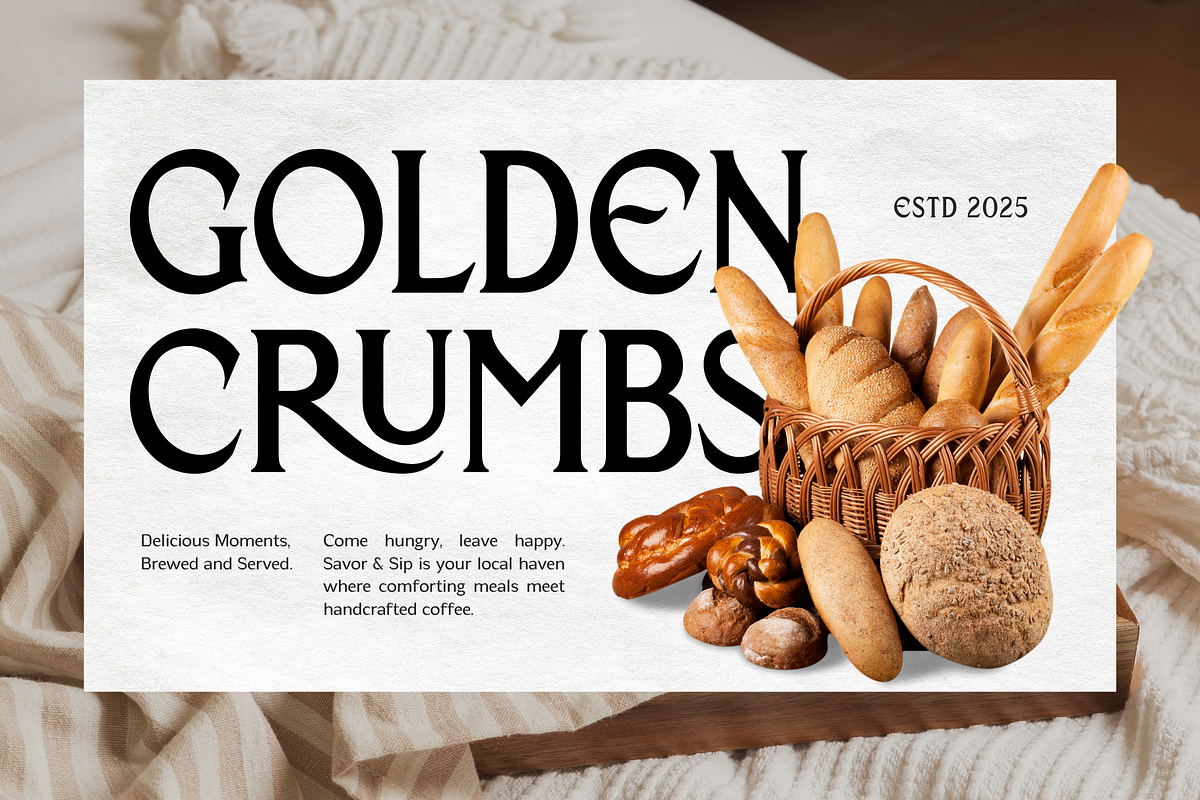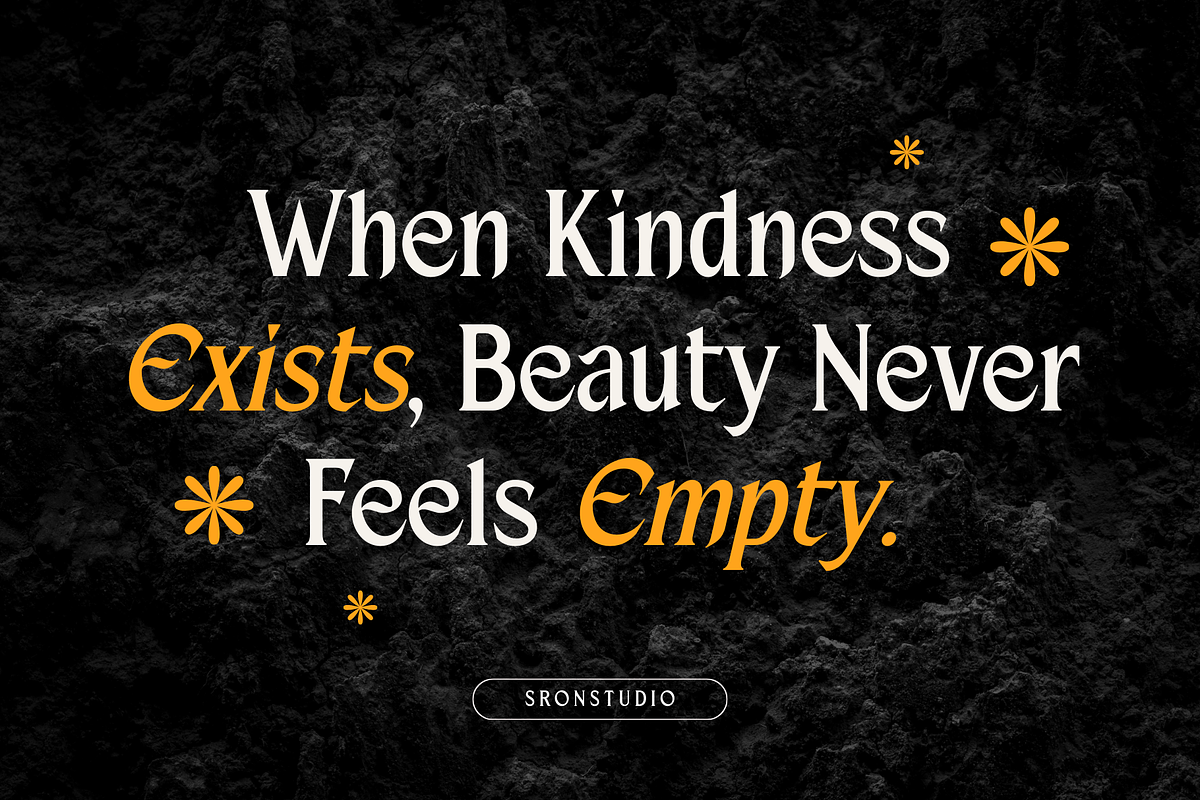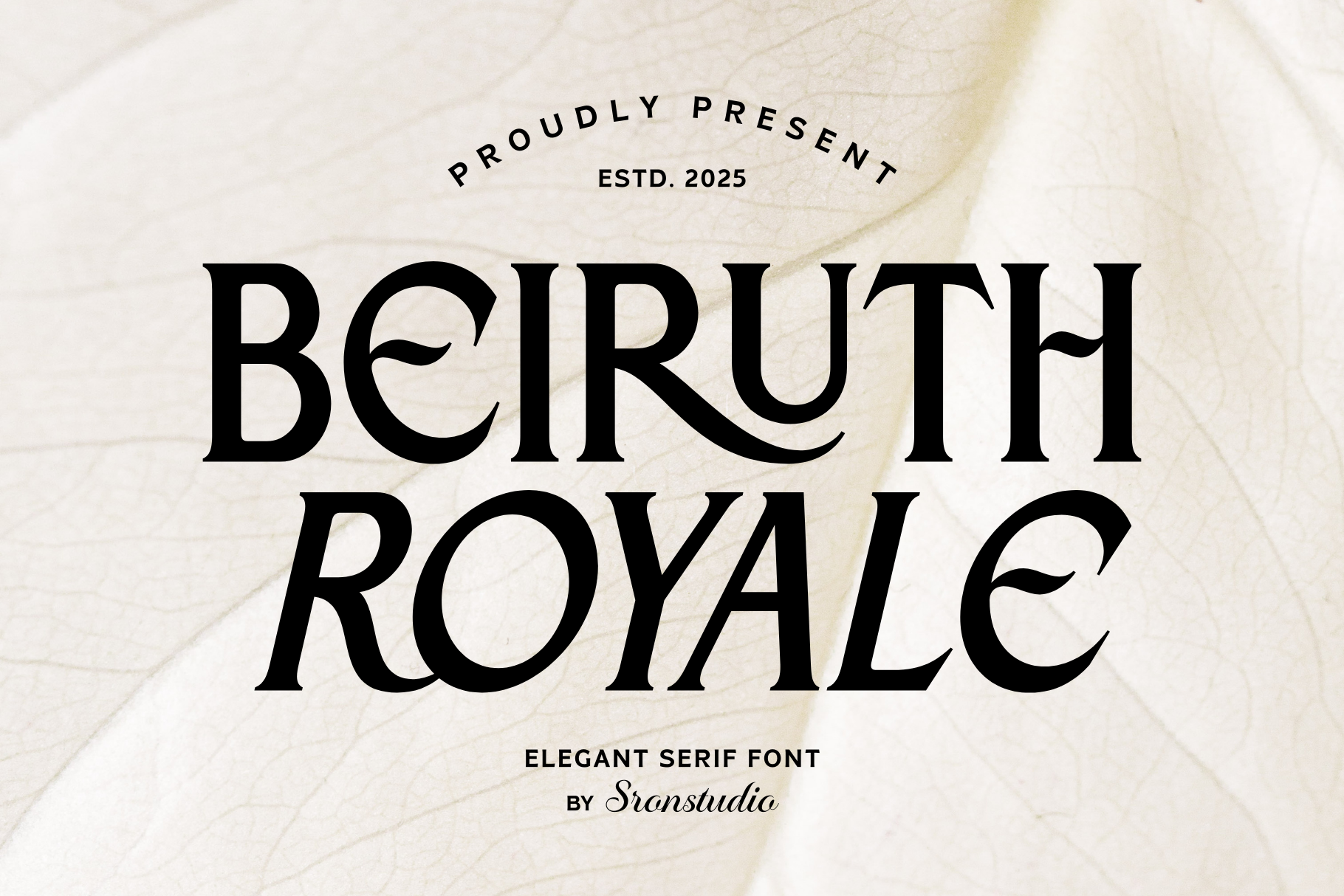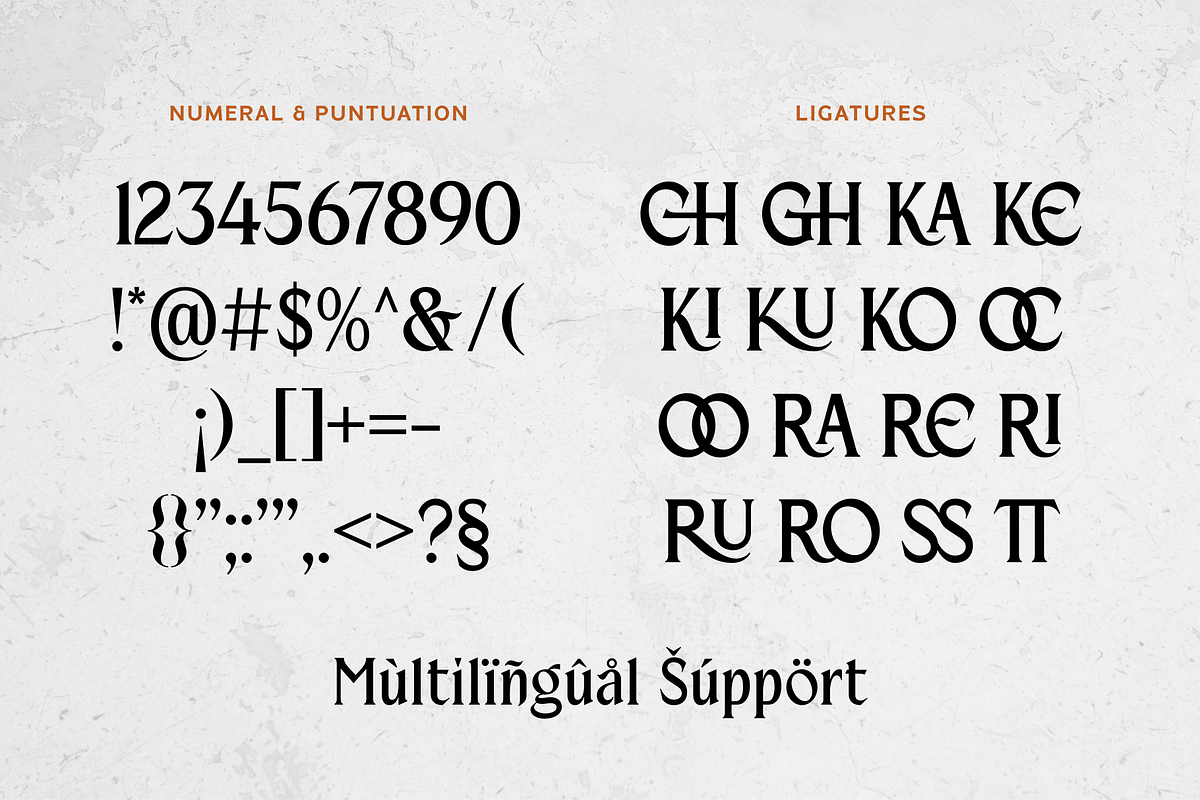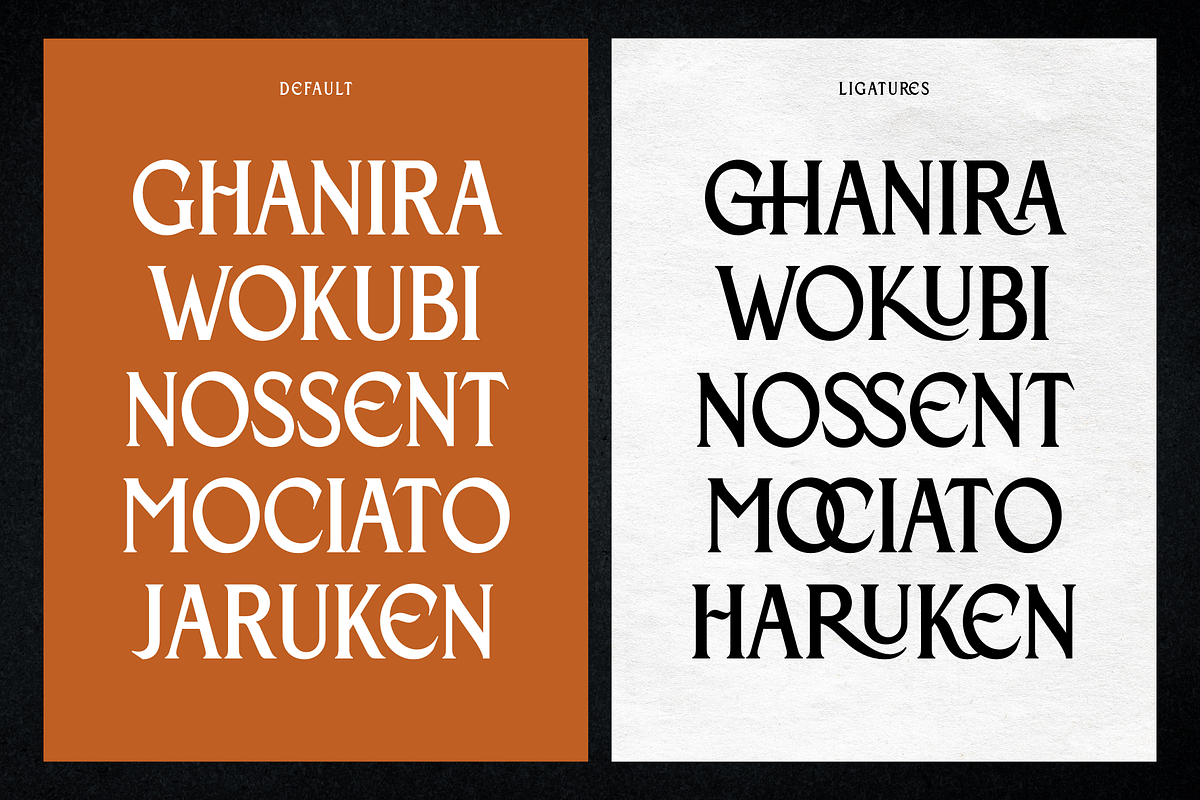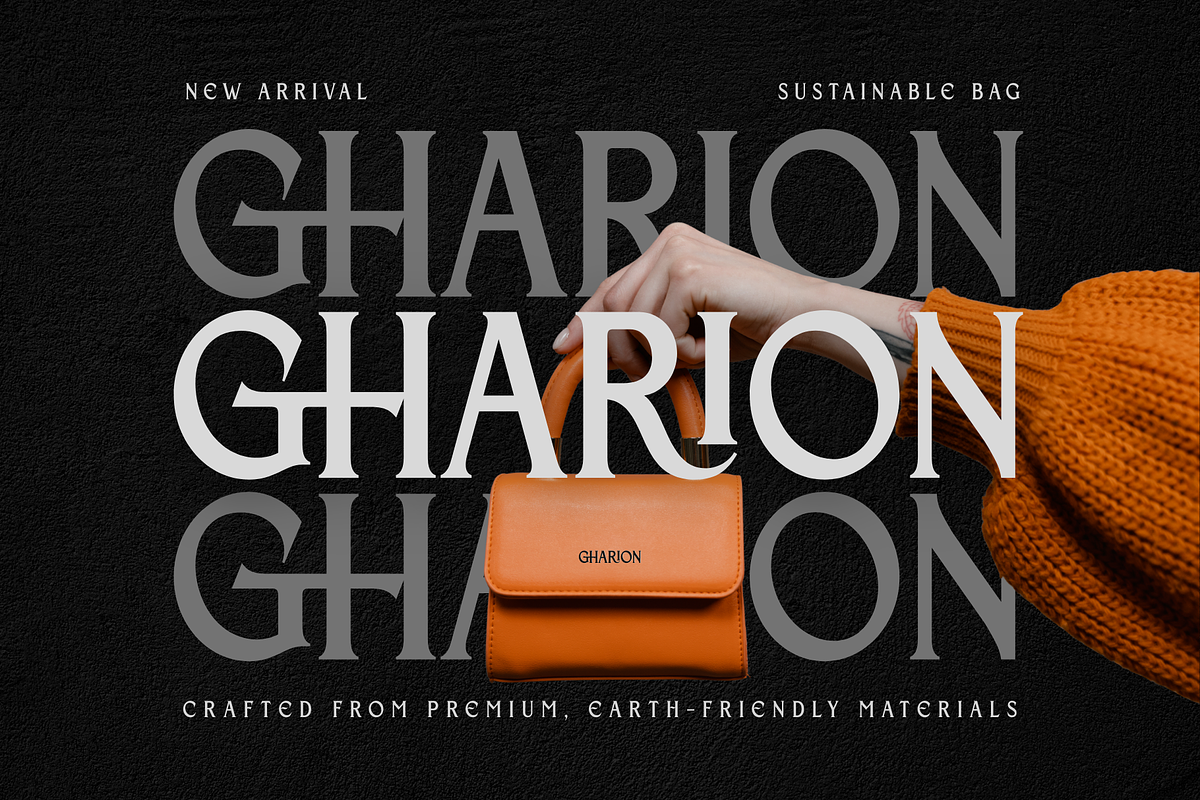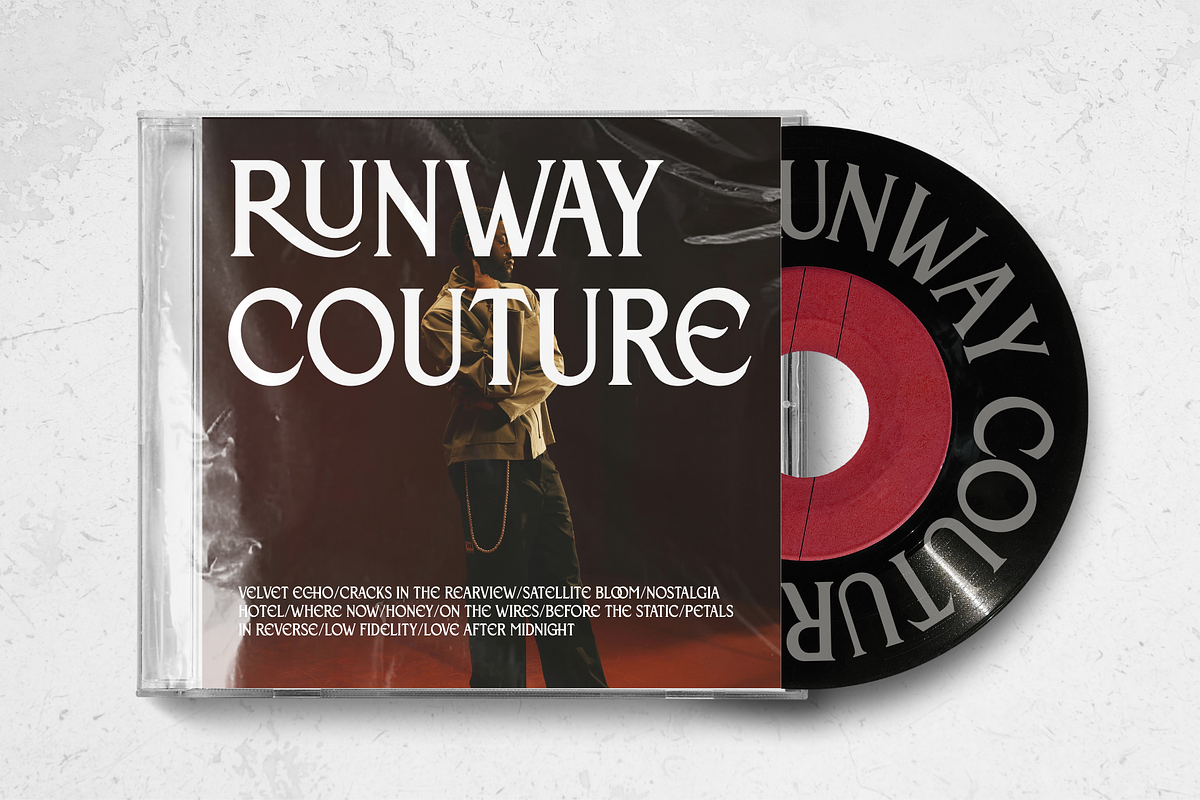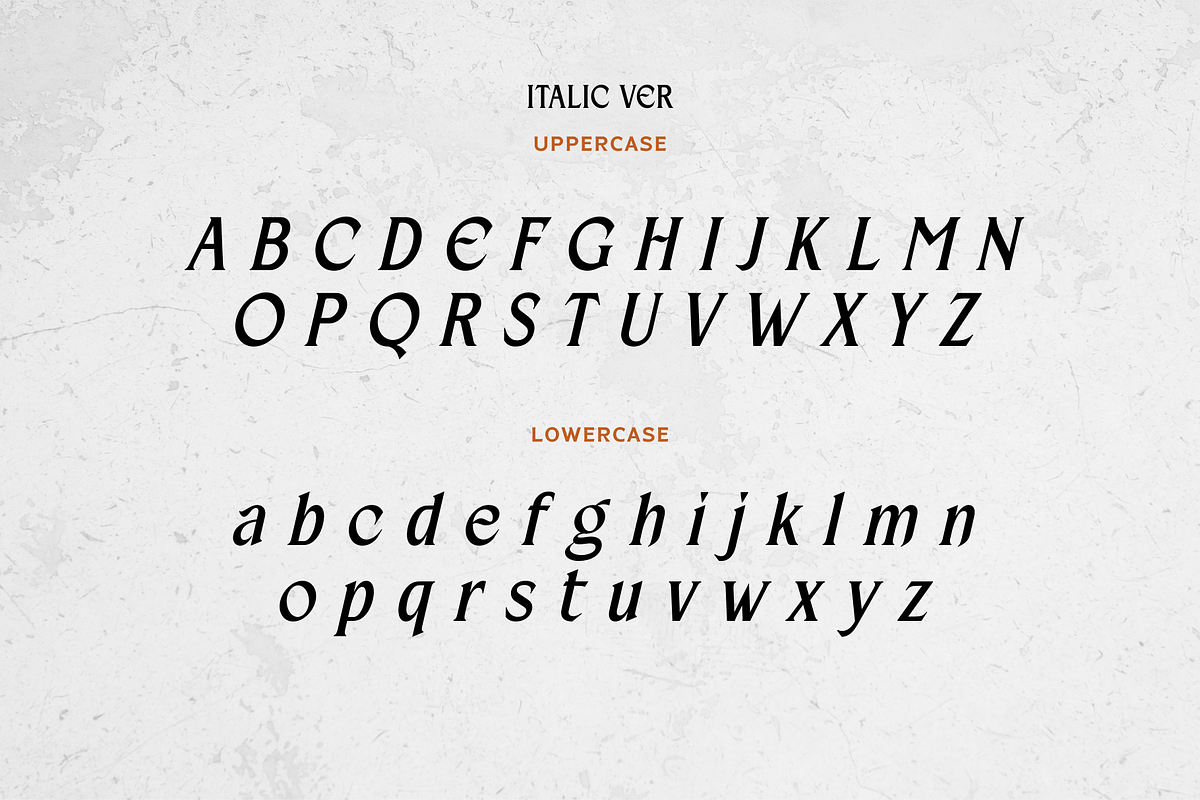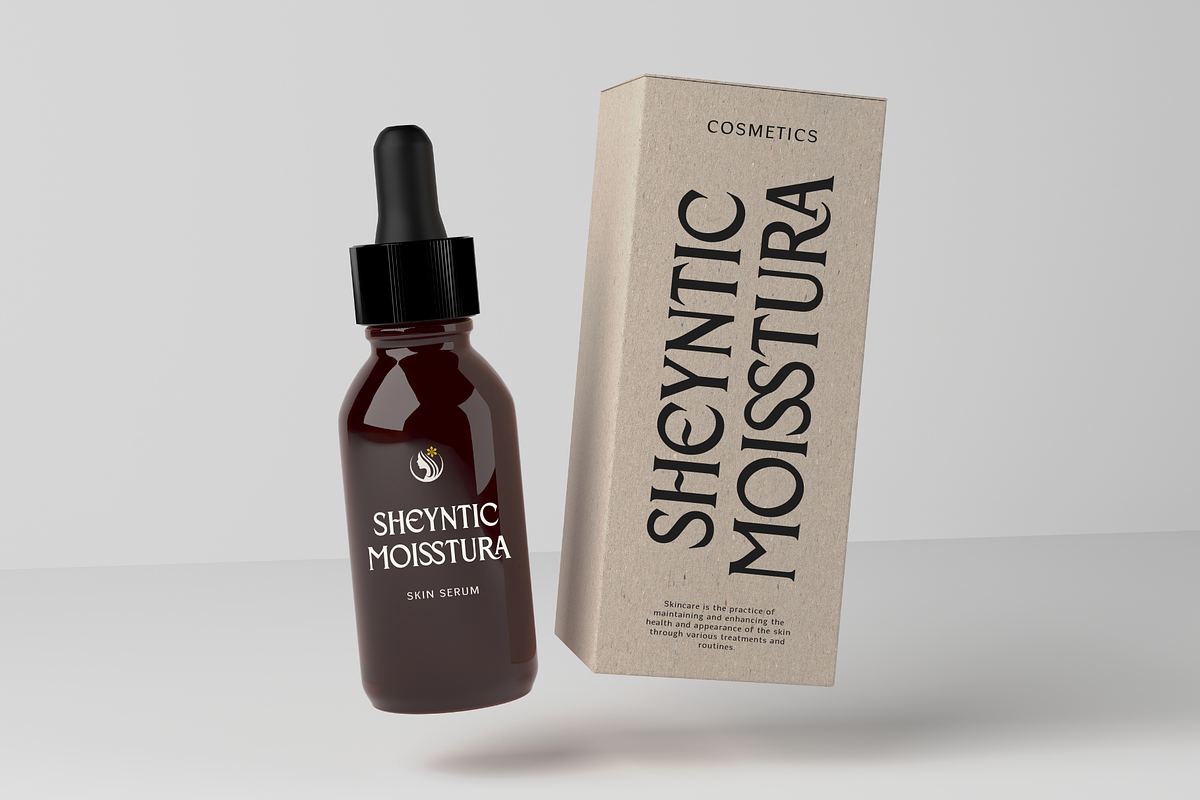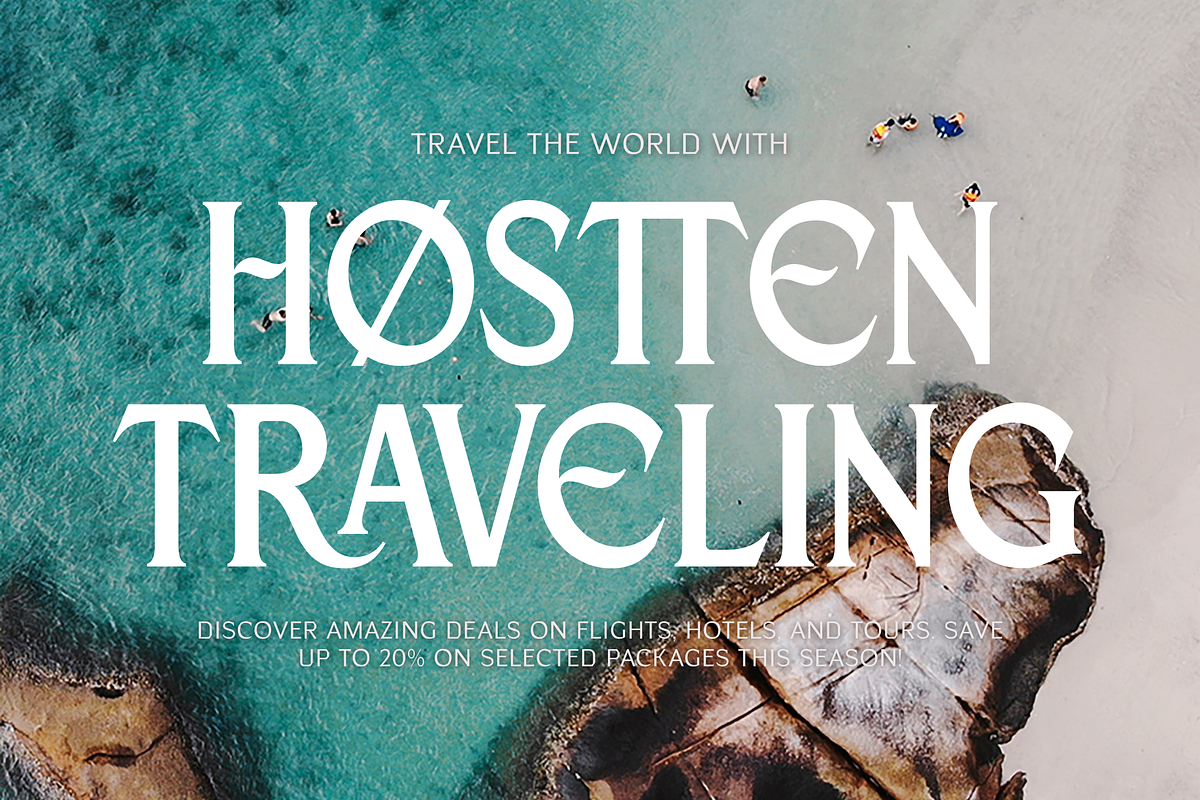
Beiruth - Serif Font
Beiruth is a classic serif font that blends timeless elegance with modern refinement. Featuring balanced proportions, clean serifs, and graceful letterforms, this font is perfect for editorial design, branding, book covers, logos, and sophisticated layouts. Beiruth delivers a professional and polished look, making it ideal for projects that require clarity, style, and enduring appeal.
- Regular & Italic styles
- Numerals & punctuation